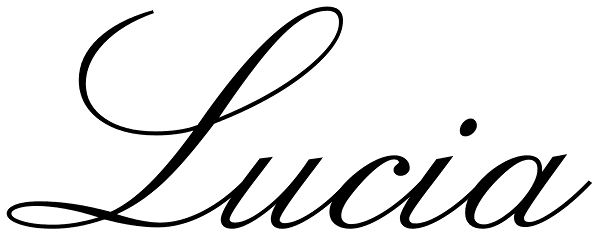
Lucia
A light roundhand with mildly clubbed terminals on the capitals. It was expertly transferred from an engravers’ pattern plate to the Fotosetter Intertype about 1955.